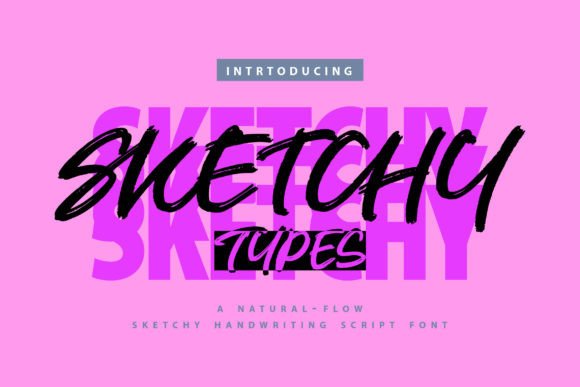
Journey into the world of expression with Sketchy Types, the bold and captivating handwritten brush font. Its urban edge and modern flair will infuse your designs with a unique personality. Picture this: a wedding invitation adorned with Sketchy Types' chic strokes, exuding sophistication and elegance. Or, imagine a social media post that pops with the font's playful energy, grabbing attention and sparking conversations. Sketchy Types is your gateway to crafting designs that resonate, leaving a lasting impression on your audience. Embrace the creativity within you and let Sketchy Types guide your artistic vision.
With Sketchy Types, you'll have a font that effortlessly adds a personal touch to your projects. Its handwritten charm will make your words dance off the page, whether you're crafting heartfelt letters, designing eye-catching logos, or creating stunning social media graphics. Its PUA encoding ensures effortless access to a vast array of glyphs and ligatures, empowering you to unleash your creativity without limits. Elevate your designs to new heights with Sketchy Types, the font that turns your artistic dreams into a reality.
Unlock the power of self-expression and let Sketchy Types be your artistic muse. Its versatility extends far beyond wedding invitations and social media posts. Unleash your imagination and explore the boundless possibilities: design stunning posters that command attention, create unique branding that reflects your brand's personality, or craft enchanting book covers that captivate readers from the first glance. With Sketchy Types, the world of design becomes your playground, where your creativity knows no bounds.